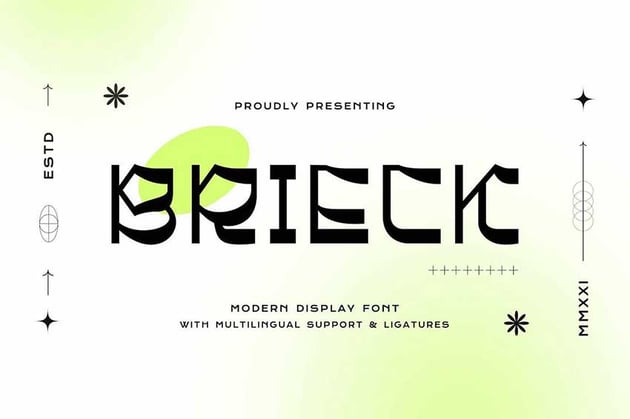
41 Best Edgy Fonts (Edgy Fonts for Cool and Modern Designs)
Modern strong fonts are everywhere. In this article, we take a look at the best trendy fonts that are popular in the market right now.
The world of typography is going through a revolutionary change. With new typefaces being released every day, we want to show you the best trendy fonts that are available to add to your designer toolbox. Let's take a look!
Whitaker (TTF, OTF, WOFF, WOFF2)
Whitaker is a strong Western style font. It features super bold slab serifs and high contrast between the strokes. This font is suitable for a brand project or an editorial design since it's a clean, edgy, modern font.
Morales Bonaven (OTF, TTF)
Modern edgy fonts that are well designed are hard to come by. Morales Bonaven is a font that features unusual curves that are inspired by the groovy 70s. Use this cool, edgy font for branding or editorial design.
Baunk (OTF, TTF, WOFF)
If you're looking for a futuristic, edgy modern font, Baunk is the one. This font has straight lines with a tech flair. This is one of the best trendy fonts that can help your projects have an experimental touch.
Sirkle (OTF, TTF, WOFF)
If you're looking for a sharp, edgy font, Sirkle has a unique style. This font is built on curvy characters and sharp corners. The characters are so distinctive that they would suit a brand design, poster, or packaging.
Bekstap (OTF, TTF)
Experimental edgy fonts like Bekshap are special. This typeface has a strong and bold personality, with a mix of modern vintage. Use it for anything from branding to edgy tattoo fonts.
Austro (OTF, TTF)
The best trendy fonts are often modelled after classic fonts. Austro is a font that features unique shapes and curves. Edgy fonts like this are best suited for an editorial design that needs strong layouts.
Pink Lover (OTF, TTF, WOFF)
Calligraphic-style edgy fonts are designed with many swashes in mind. Pink Lover is a fancy handwritten font that's highly legible and best suited for invitations. The pack includes many glyphs and ligatures, so you have many options for a single character.
Auditorium (TTF, OTF, WOFF, WOFF2)
Auditorium is a bold, edgy font with a bleeding ink effect. This is a modern strong font with multiple widths that can help achieve many different personalities, especially for brand design. Auditorium is suitable for promotional materials, social media, and invitations.
Buncher Georgia (OTF, TTF, WOFF, WOFF2)
If you're looking for the best edgy tattoo fonts, Buncher Georgia is one of them. The font has a vintage style inspired by ancient characters. If you're looking to give your projects an Art Nouveau feel, this elegant font is perfect.
Rochek Vintage (OTF, TTF, WOFF)
Bold edgy fonts like Rochek are not easy to design. This fancy serif font has fun characters with bold strokes that make it look heavy and hard to miss. Design the most creative projects with this cool, edgy font.
Ragshie (OTF, TTF)
Ragshie is another modern, edgy font with lots of personality. The font has an out-of-this-world style, so use it on sci-fi projects—it's almost freeform, so it's perfect for that. The pack comes with multiple alternates and ligatures, so you'll never get tired of the many characters!
Antikern (OTF, TTF, WOFF, WOFF2)
Antikern is a psychedelic font that's inspired by Art Nouveau. This retro edgy lettering is awesome for projects that require you to use a nostalgic and evocative font. Antikern is suitable for branding and music poster designs.
Maginte (OTF, TTF)
If you're looking for an edgy writing font, a.k.a. legible, Maginte is a great option. While the font is modern and experimental, it's still legible for long-form text. This type of font is suitable for headlines, logos, and branding.
Maginors (OTF, TTF)
Maginors is a clean, edgy, modern font. The design is stylish and contemporary and allows you to mix lower and uppercase characters. This font is suitable for logos, posters, and movie titles.
Helfita (OTF, TTF)
Create the most futuristic designs with this clean, edgy, modern font. Helfita is a sans serif font with beautiful, soft curves. It's suitable for fashion, movies, and branding.
Heliyos (OTF, WOFF)
If you're looking for edgy lettering style fonts, this classic modern font is it. Heliyos mixes modern styles with classic to create a minimalist design. It's suitable for wedding invitations and magazines.
Black Pytter (OTF, TTF, WOFF)
The inspiration of Black Pytter is the blackletter style of typography. This edgy lettering font has a modern twist with a strong, unique look. This type of font is great for album covers or music projects, and you could also use it as an edgy tattoo font.